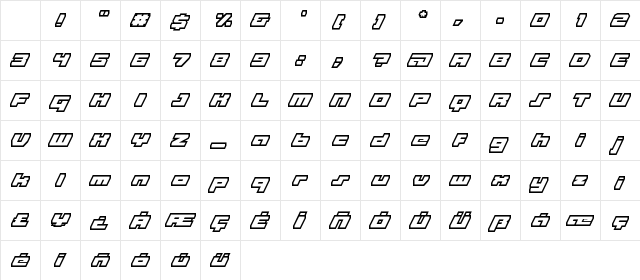
Complete zapristi! eYe/FS Regular glyph index. Displaying only characters natively supported by zapristi! eYe/FS Regular font.
zapristi! eYe/FS is a composed and adaptable typeface that performs quietly and consistently across a wide range of design contexts.